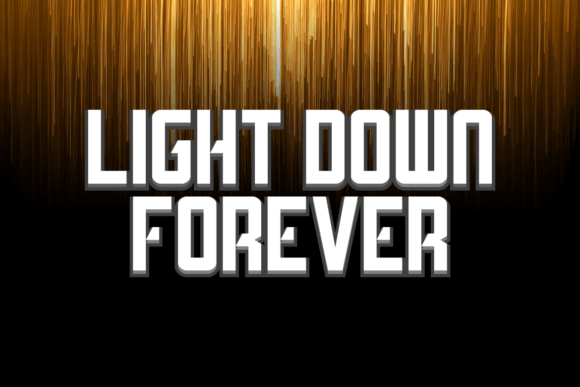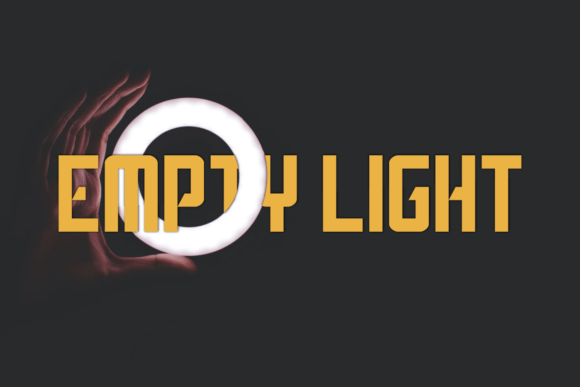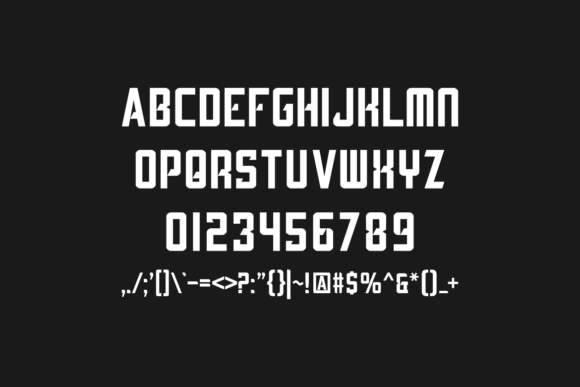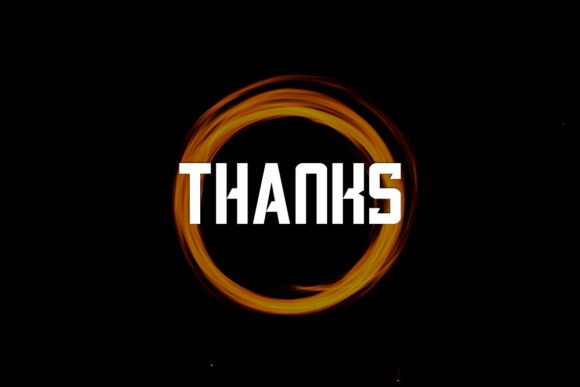
Unlock the Power of Eforpro Font
You know that moment when a font just clicks, and you know your project is about to take off? That’s exactly what happens when you add the Eforpro Font to your creative endeavors. This cool and unique display font is designed to make a statement and leave a lasting impression.
As a designer, you’re always on the lookout for that special something that sets your work apart from the rest. Eforpro Font is that something – a valuable addition to any project that demands attention and sophistication. With its versatility and modern aesthetic, it’s the perfect tool to elevate your designs and capture the imagination of your audience.
Eforpro Font Key Features
- Font Family: Eforpro Font is a sans-serif font family that offers a modern and clean look, making it suitable for various applications, including digital and print media.
- Size: The font family includes various font weights, ranging from Light to Extra Bold, with corresponding font sizes and resolutions.
- Unique Characteristics: Eforpro Font is designed to be highly legible and readable, even at small font sizes, making it ideal for digital applications, such as websites, mobile apps, and e-books.
- Language Support: Supports a wide range of languages, including Latin, Cyrillic, and Greek scripts, making it a versatile choice for global applications.
Eforpro Font Review
I recently had the chance to work with the Eforpro Font, and I have to say it’s a mixed bag. On the one hand, there are some things that really stand out.
- ✨ The font is highly legible, even at small font sizes. I was able to read text easily without any strain on the eyes.
- ✨ The font is versatile and works well in a variety of contexts, from body text to headings.
- ✨ The font has a clean and modern aesthetic that’s perfect for contemporary designs.
However, there are some limitations that held me back from giving it a full 5-star review.
- ⚠️ The font lacks a clear personality or unique flair. It’s a bit too generic for my taste.
- ⚠️ The font doesn’t have a lot of character variations, which can make it feel a bit one-dimensional.
- ⚠️ The font doesn’t work well in very condensed spaces, such as social media avatars or small text boxes.
Overall, I would give the Eforpro Font 3.5 out of 5 stars. It’s a solid, reliable font that’s easy to work with, but it doesn’t particularly stand out from the crowd. If you’re looking for a clean and modern font that’s easy to read, Eforpro might be a good choice. But if you’re looking for something with a bit more personality or uniqueness, you might want to keep looking.
Some tips for getting the most out of Eforpro Font include:
– Use it for headings and titles to create a bold and modern look.
– Pair it with other fonts to create a unique and eye-catching design.
– Use it in combination with bold and italic styles to add emphasis to your text.
– Experiment with different font sizes and colors to create a visually appealing design.
Alternatives to Eforpro Font for Designers
Eforpro Font is a versatile and modern sans-serif font, but sometimes designers may need alternative options. Here are a few alternatives that offer unique characteristics and use cases.
Open Sans is a clean and highly legible sans-serif font designed for digital interfaces. It is suitable for body text and headings in web and mobile applications. Open Sans is more extensive than Eforpro Font, with over 900 glyphs, making it a great choice for multilingual designs. However, it may feel less modern and sleek compared to Eforpro Font.
2. Montserrat
Yes, the Eforpro Font is designed to be highly legible on digital displays, including screens, monitors, and mobile devices. Its clear and clean design ensures that characters remain sharp and readable even at small font sizes.